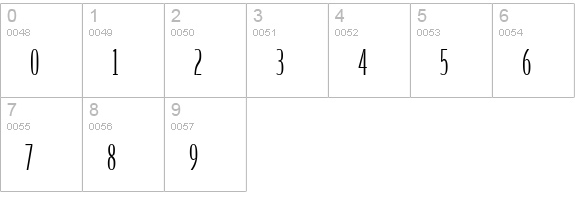
AmplitudeExtraComp-Light is a refined, elegant variant in the AmplitudeExtraComp typeface family \xE2\x80\x94 well suited to elegant body text, refined sub-headings, and luxury branding.
AmplitudeExtraComp-Light font is a sleek and modern typeface that exudes elegance and sophistication. Its clean lines and subtle curves make it perfect for a wide range of design projects, from branding to editorial design. The light weight of the font adds a touch of delicacy and refinement, making it ideal for conveying a sense of sophistication and style. Best of all, AmplitudeExtraComp-Light font is available for free download at FontsMarket.com. This means you can easily access this beautiful typeface and incorporate it into your projects without any cost. Don't miss out on the opportunity to elevate your designs with this exquisite font that is both stylish and versatile. Download AmplitudeExtraComp-Light font today and add a touch of elegance to your creative endeavors.